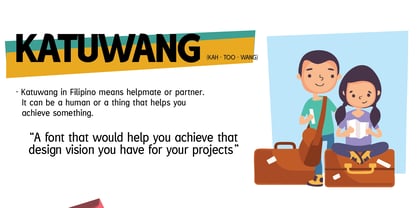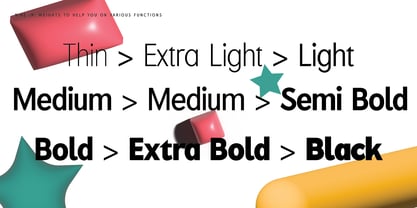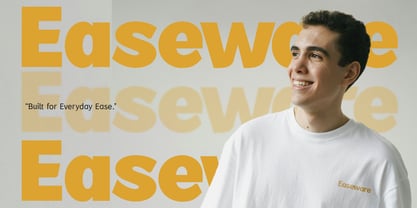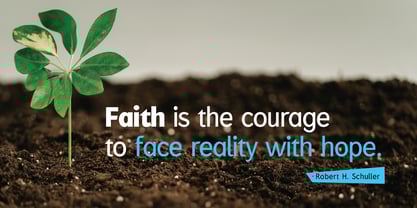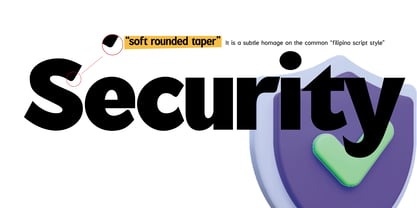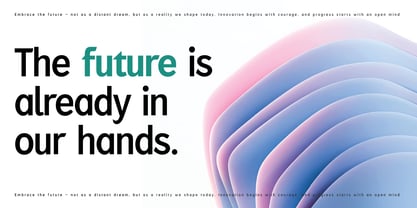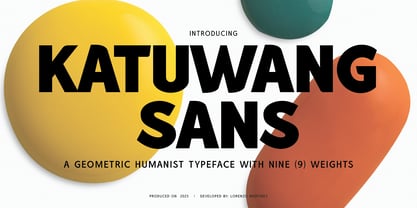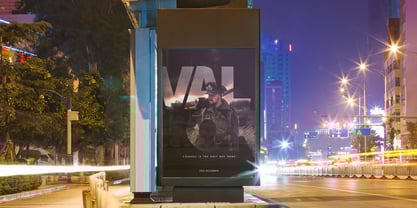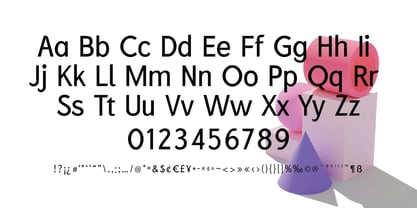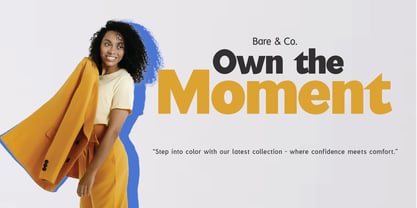
Katuwang Sans
by Lurinzu Studios
The Katuwang Sans Font Family was designed by Lorenzo Gabriel Martinez and published by Lurinzu Studios. Katuwang Sans contains 9 styles and family package options.
Katuwang Sans is a geometric humanist typeface inspired by neutral looking fonts like helvetica, futura, montserrat and a like.
This typeface is neutral looking meaning it is versatile enough to be used in all applications and functions. The different weights included in this font helps the designers to choose their desired weight as they needed. Thin to Regular (body captions); Medium-Black (titles, and headlines.
About Lurinzu Studios
Lurinzu Studios is a one man digital type - foundry based on Bacoor, Cavite Philippines started by Lorenzo Martinez in the year 2019. Expressive and display fonts are the main staples produced in this digital foundry.The main vision for this foundry is to create typefaces that could express the emotion of each message and letters as they are intended to be read.